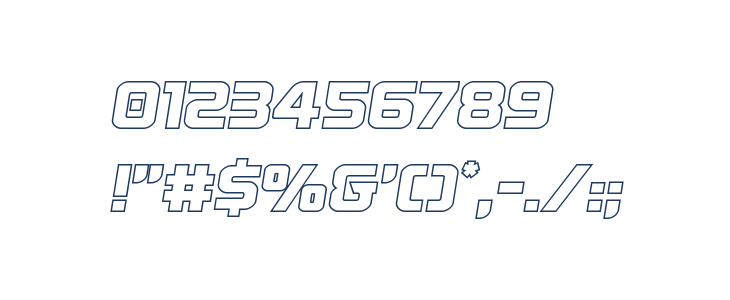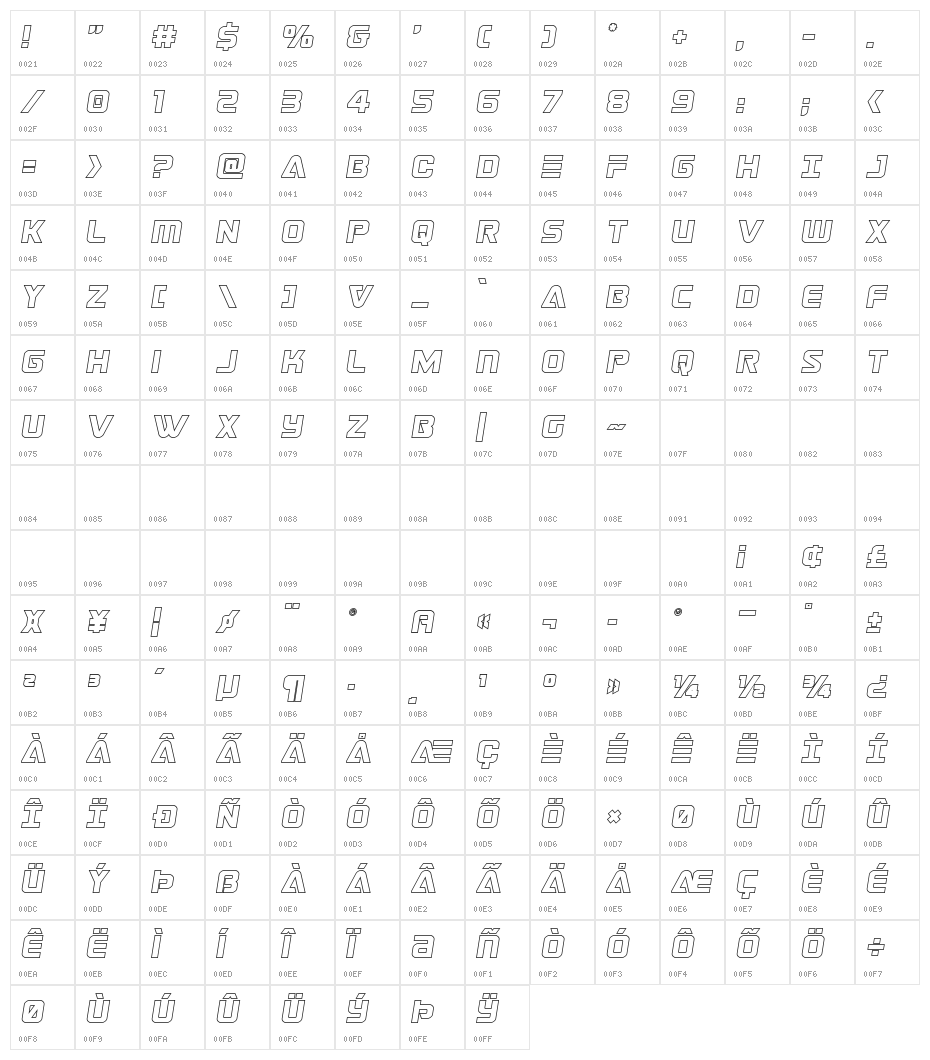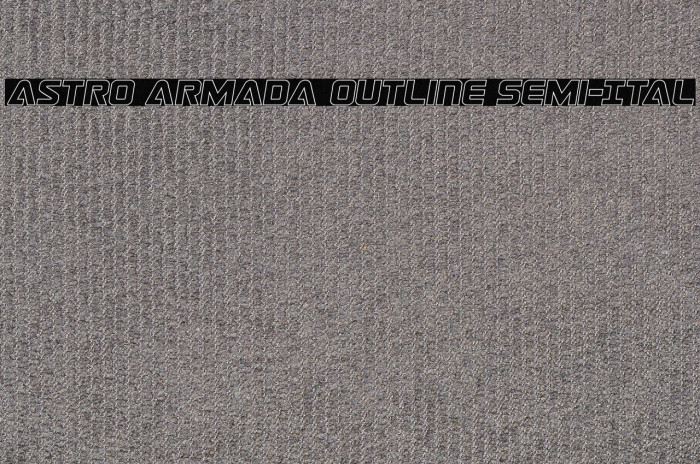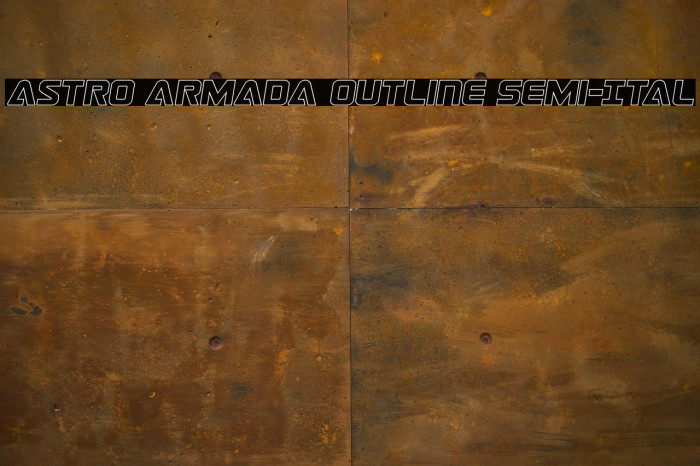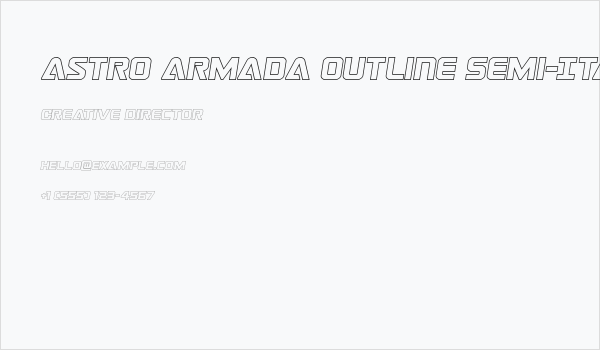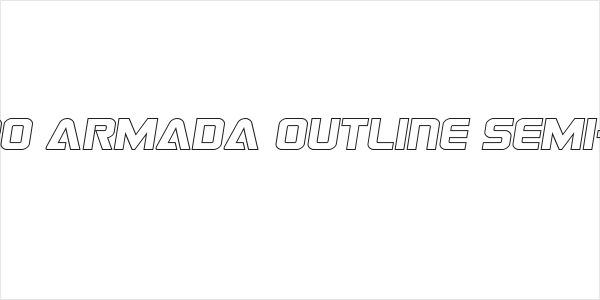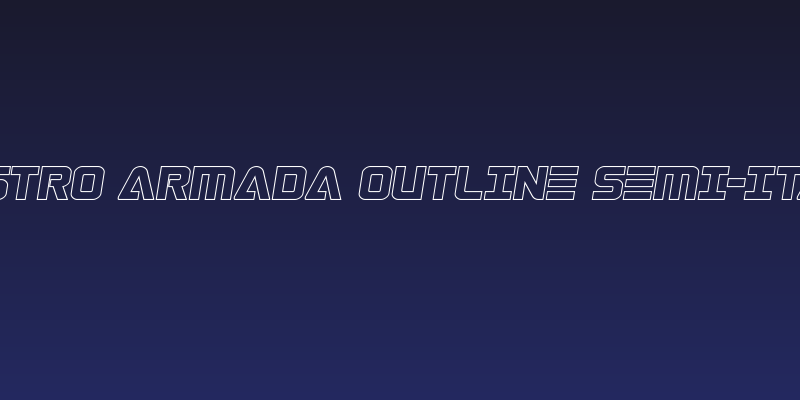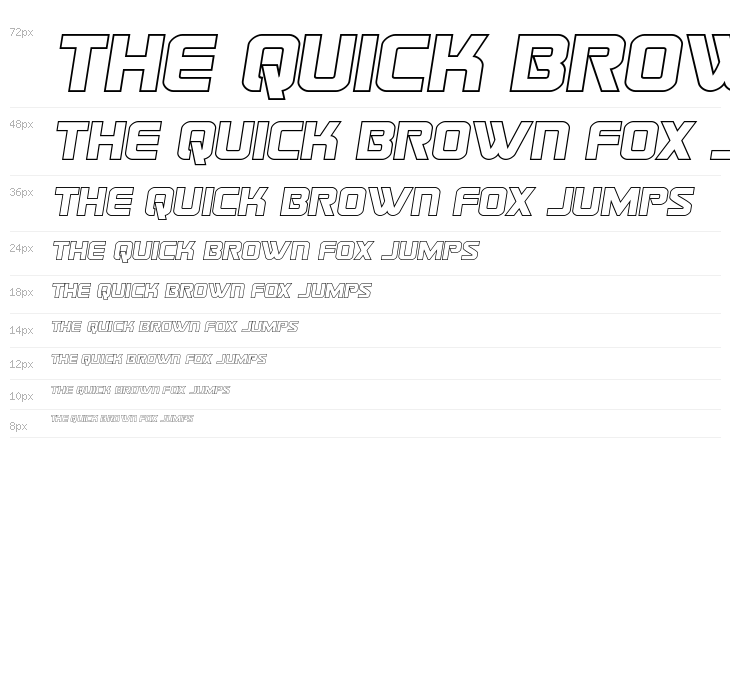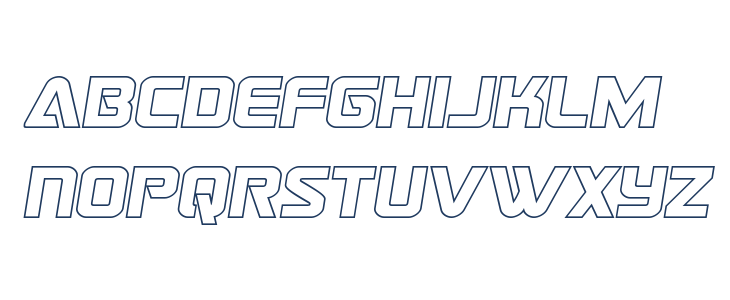
Astro Armada Outline Semi-Ital Font
Astro Armada Outline Semi-Ital Description
This font features a futuristic and geometric design with an outlined style, giving it a modern and sleek appearance. The characters are semi-italicized, adding a dynamic and forward-leaning effect. The uppercase letters are bold and prominent, while the lowercase letters maintain consistency in style. The numbers and special characters follow the same outlined and semi-italic design, ensuring uniformity across all elements. The font's clean lines and structured form make it suitable for projects that require a contemporary and tech-inspired look.
| Proposed Projects | Ideal for tech branding, sci-fi posters, video game titles, and modern advertisements. |